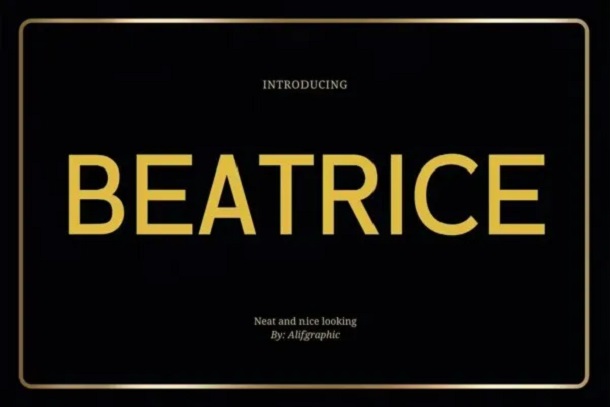
Beatrice Sans Font
Beatrice Sans Font. A beautiful collection of letters is captured by this “Beatrice”. The neat lettering will add modernity and eye-catching appeal to your writing, while still maintaining its sleek appearance. We strive to ensure each letter looks clean as possible so this font product allows you to unleash creativity and have fun while writing!
Beatrice Sans Serif Font
Beatrice Sans Font 2